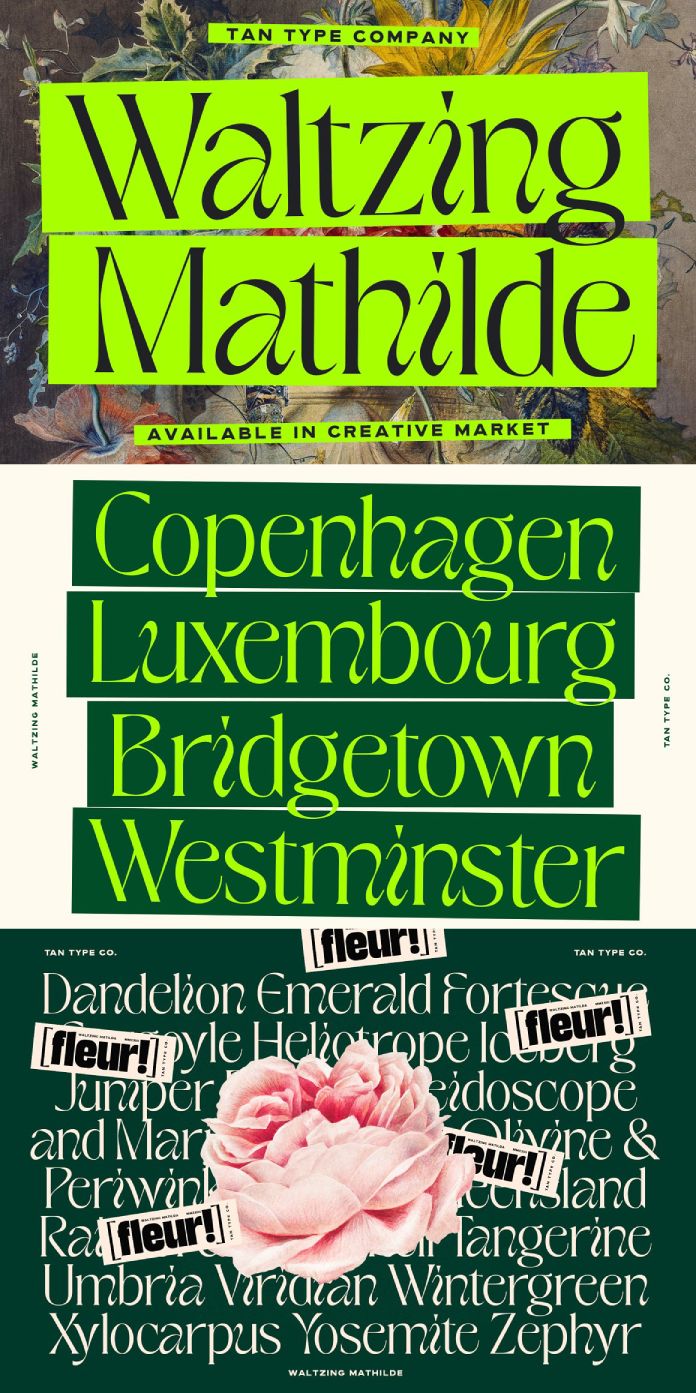
Create unique and playful titles with the TAN WALTZING MATHILDE typeface from foundry TanType.
TAN WALTZING MATHILDE is a display font with a unique and playful appearance. The typeface supports multiple languages. You can use it for eye-catching headlines, text overlays on social media images, brand and packaging design, or anything that asks for a fun but elegant typeface. Whether print or web design, the TAN WALTZING MATHILDE font always looks good.
TAN WALTZING MATHILDE is perfect for creating an impactful and stylish look that adds personality to any project. With this unique typeface at your fingertips, you can take your designs to the next level! Whether you’re designing for a digital platform, print publication, or just adding some fun to your personal projects, TAN WALTZING MATHILDE has got you covered. From its sharp corners to its sleek lines and curves, this typeface will bring an eye-catching touch to any design.